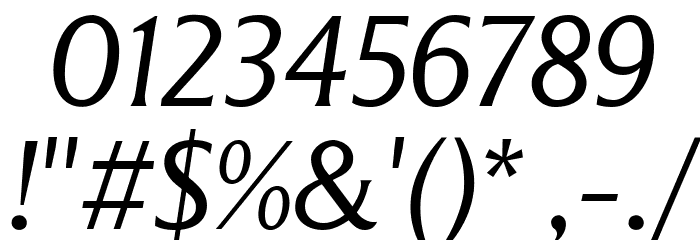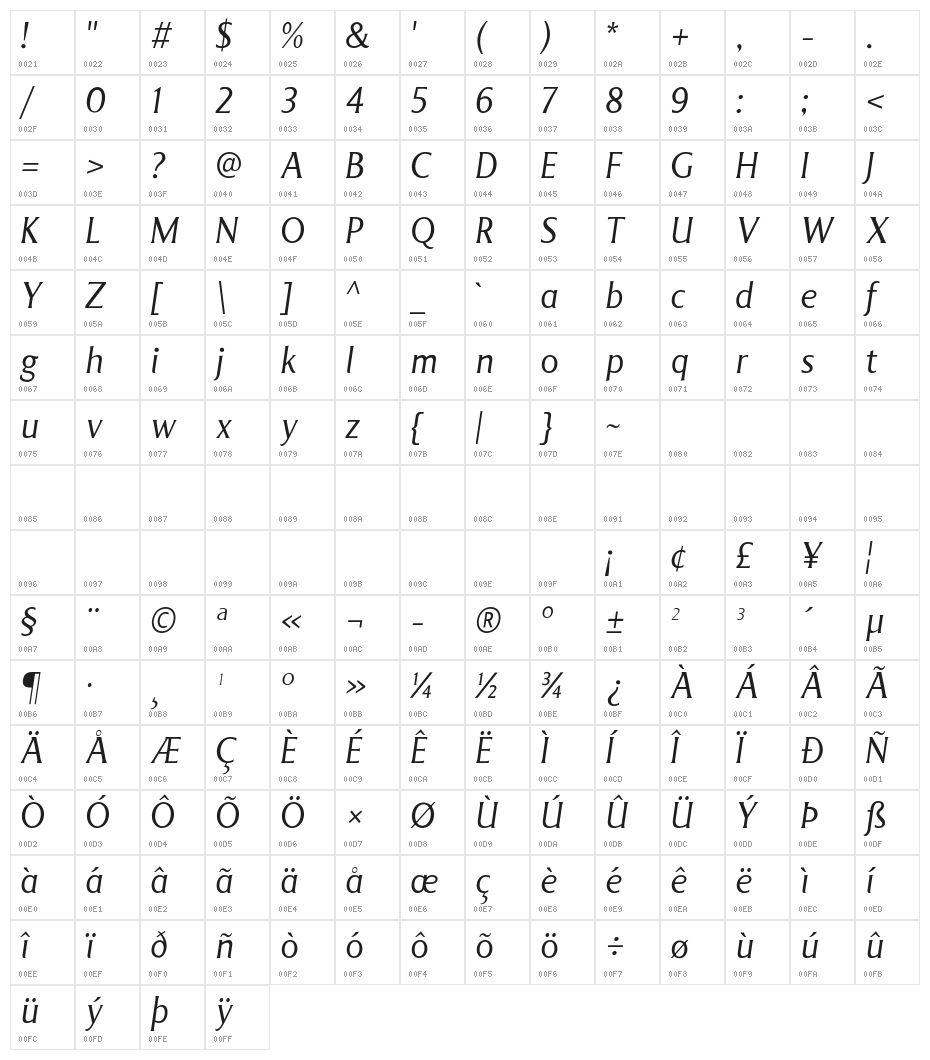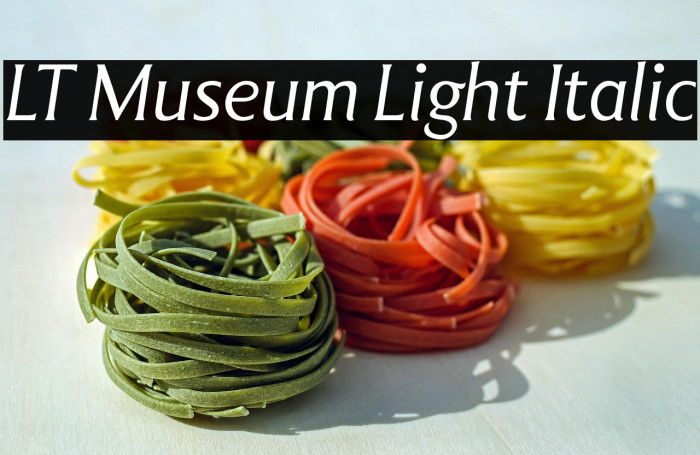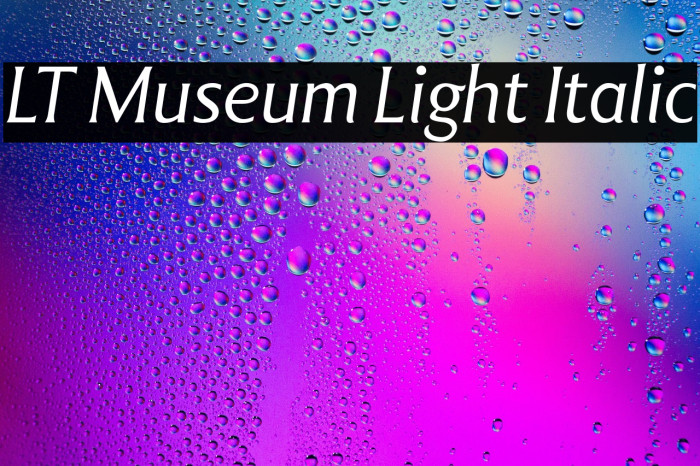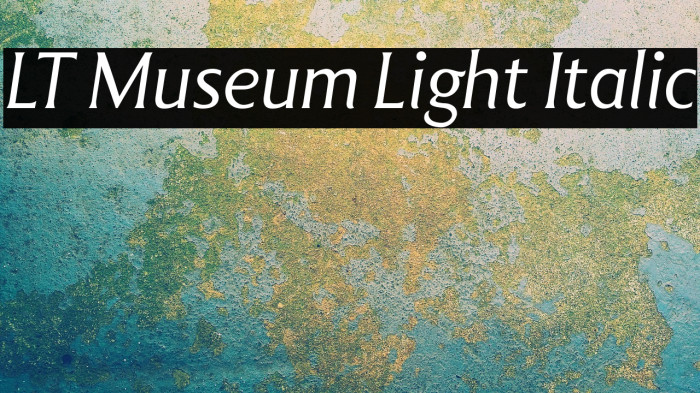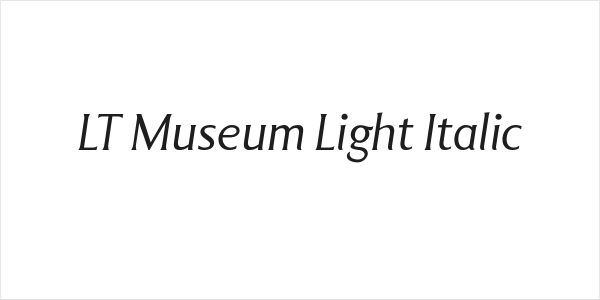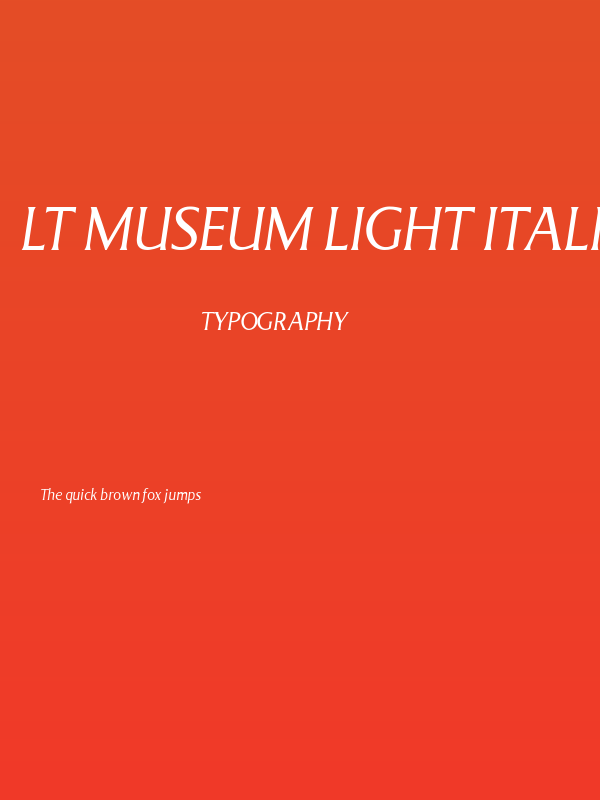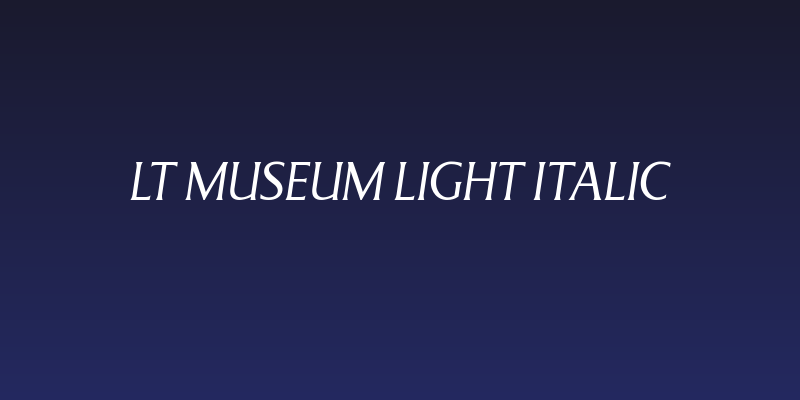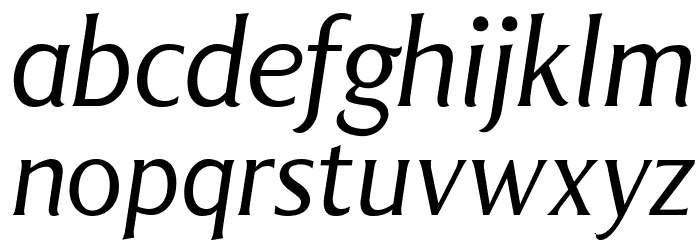
LT Museum Light Italic Font
LT Museum Light Italic Description
This font exhibits a refined and elegant style, characterized by its light weight and italicized form. The letters are slightly slanted, giving a sense of motion and sophistication. The strokes are thin and consistent, providing a delicate appearance. The serifs are subtle, enhancing readability while maintaining a classic look. The overall design is clean and modern, suitable for conveying a sense of professionalism and elegance. The numerals and special characters are designed to match the letterforms, ensuring a cohesive appearance across all text elements.